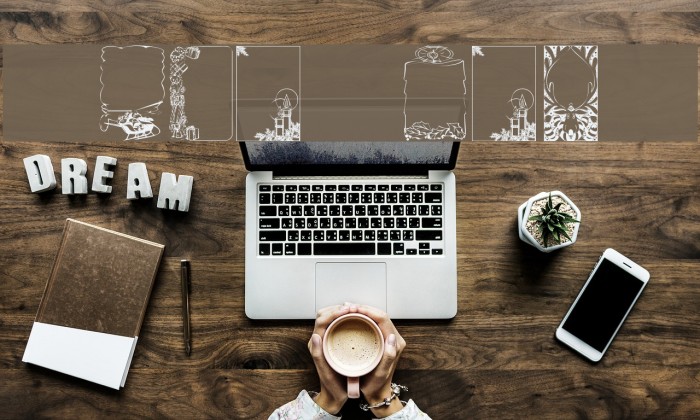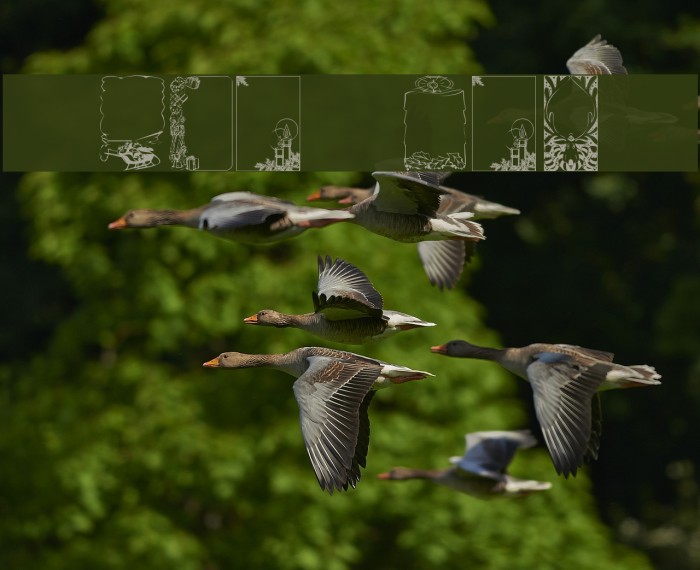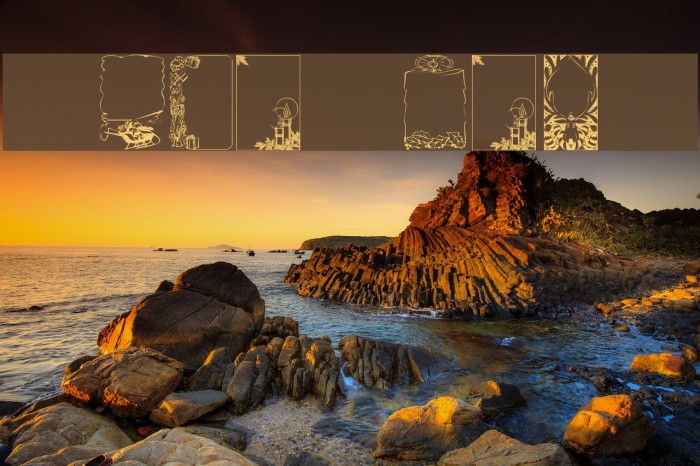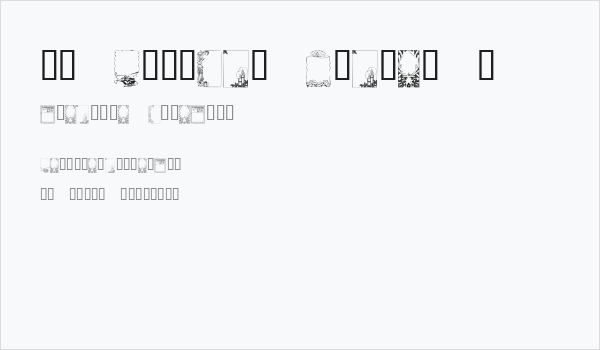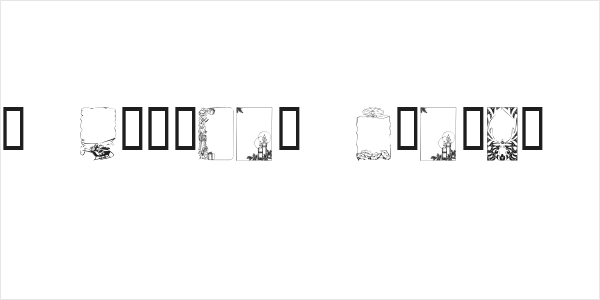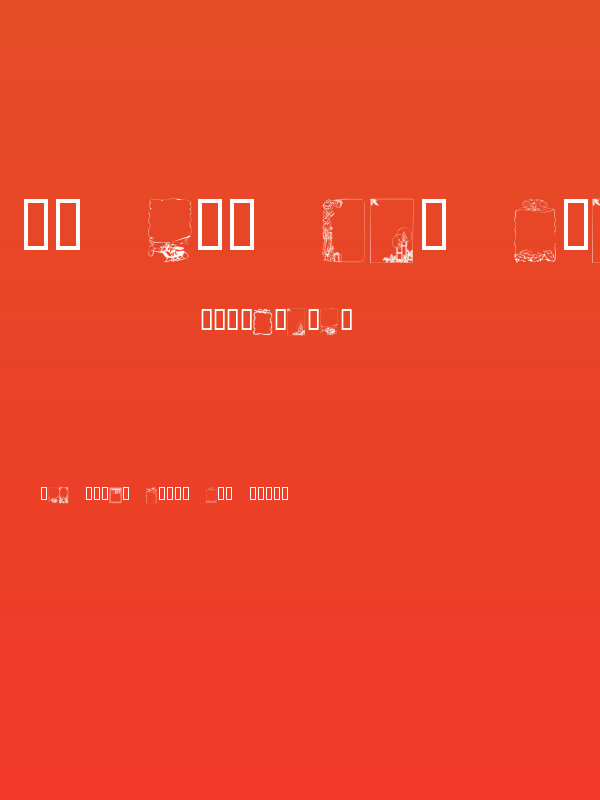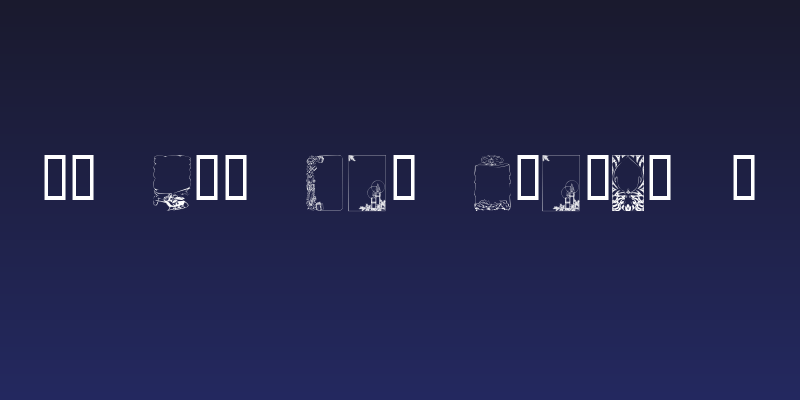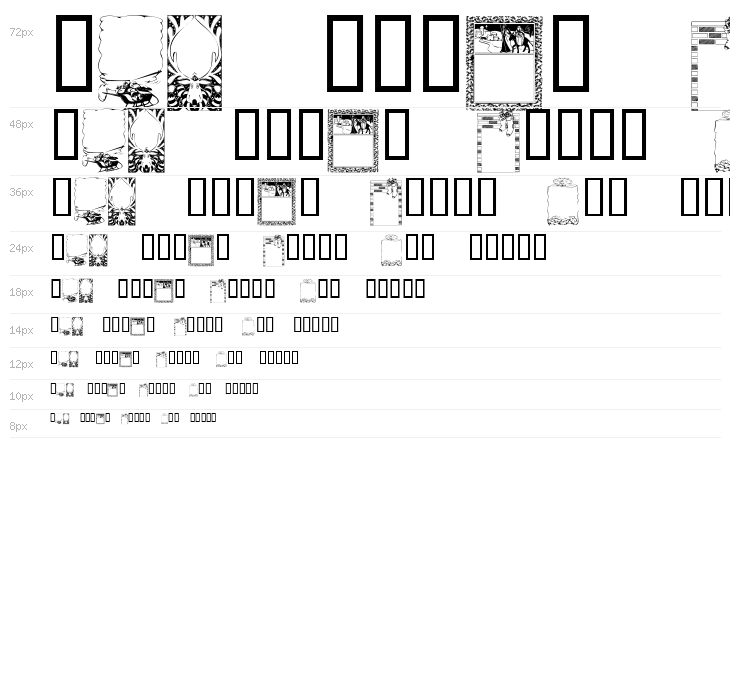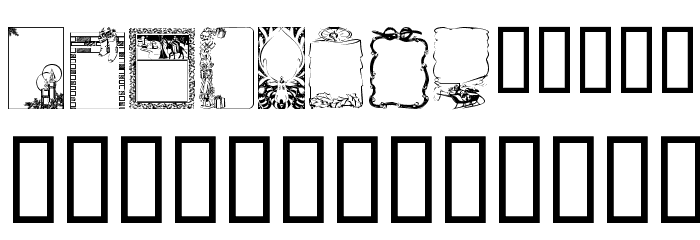
KR Holiday Frames 1 Font
KR Holiday Frames 1 Description
This set features a collection of decorative frames with intricate holiday-themed designs. Each frame is unique, showcasing elements like ribbons, holly, and festive motifs. The frames are rectangular and vary in complexity, with some featuring detailed illustrations and others more simplistic borders. These frames are ideal for adding a festive touch to holiday cards, invitations, or scrapbooking projects. The designs are versatile, suitable for both digital and print media, and can be used to enhance the visual appeal of any holiday-themed project.
| Use Case | Decorative elements for holiday-themed projects. |
| Proposed Projects | Ideal for holiday cards, invitations, scrapbooking, and festive digital or print media projects. |